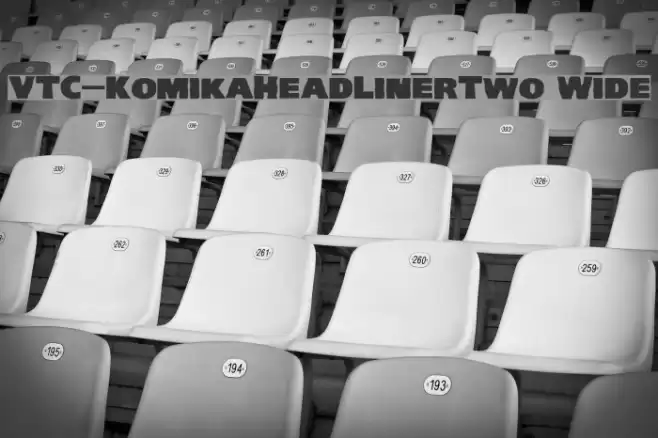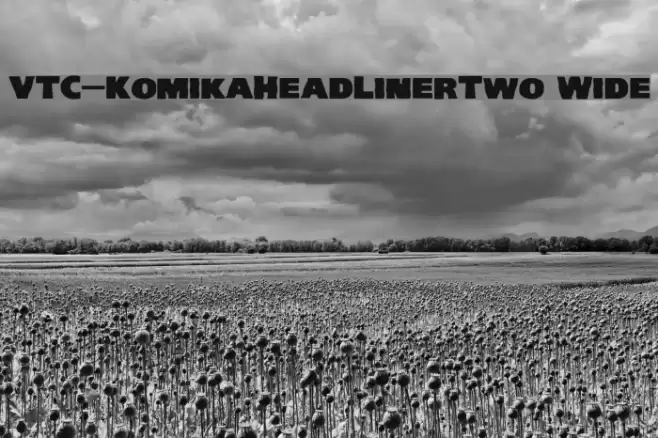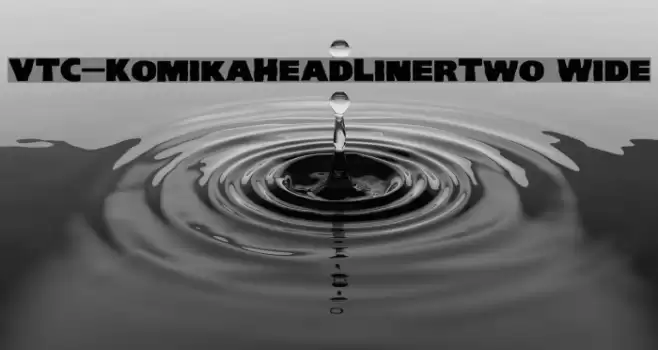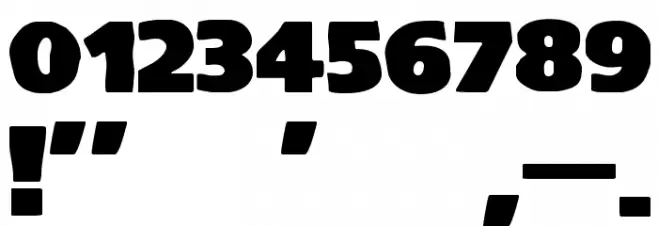
VTC-KomikaHeadLinerTwo Wide Font
VTC-KomikaHeadLinerTwo Wide Description
This font features bold, thick strokes with a playful and cartoonish style. The characters are wide and have a strong presence, making them ideal for attention-grabbing headlines. The uppercase letters are particularly prominent, with rounded edges that add a friendly and approachable feel. The numbers and special characters maintain the same boldness, ensuring consistency across all text elements. This font is perfect for projects that require a fun and energetic vibe, such as comic books, children's books, or playful branding materials.
A bold, cartoonish font with wide, rounded characters ideal for playful designs from Uncategorized fonts.
- Proposed Projects: Comic books, children's books, playful branding, posters, and headlines.
- Width: Expanded
- Overall Style: Playful, Cartoonish